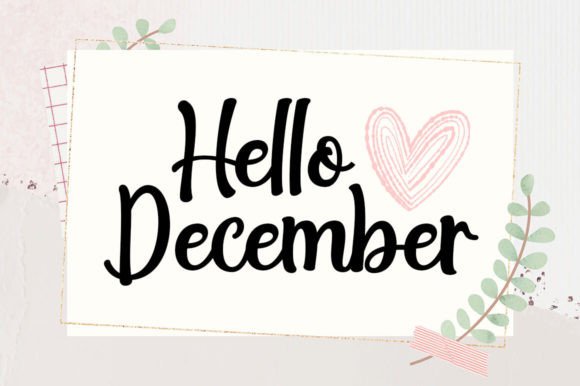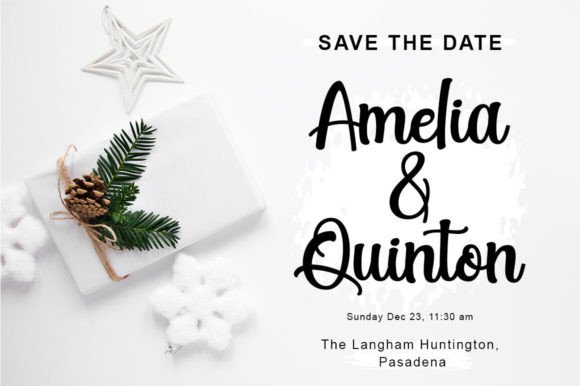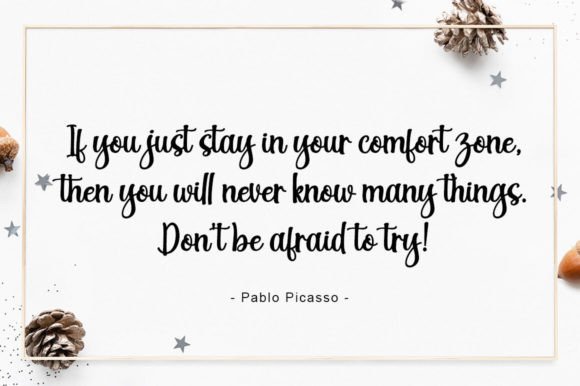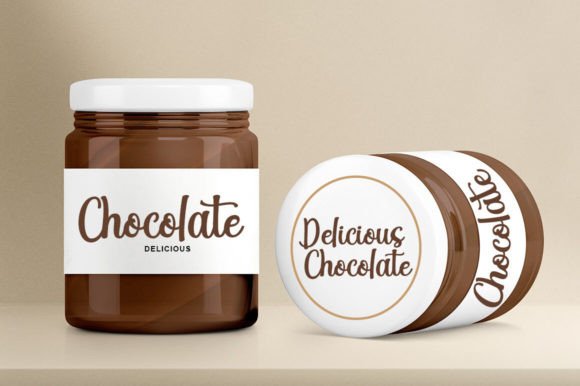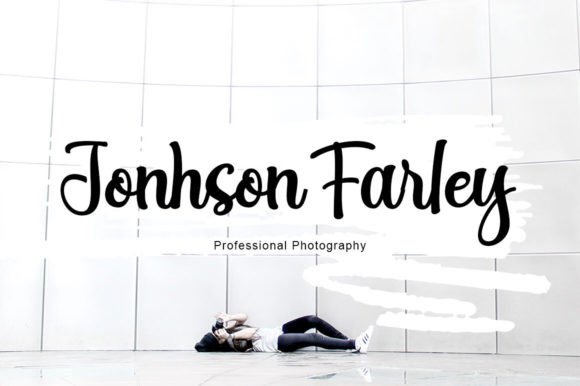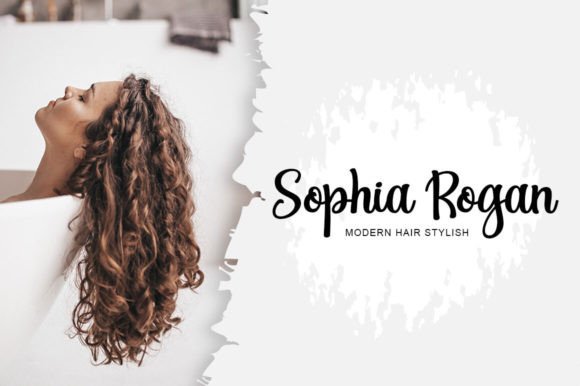
Unleash Your Creativity with the Perfect Handwritten Touch
Who hasn’t felt that rush of excitement when brainstorming a new project, the ideas flowing freely and the possibilities endless? It’s a feeling that never gets old, and it’s exactly what we experience when working with the right tools – like the Handwritten Font. This bouncy and cute handwritten script font is more than just a design element; it’s a way to add a playful and quirky touch to your creations.
Whether you’re designing wedding invitations, birthday cards, or t-shirt designs, the Handwritten Font is the perfect companion to help you bring your ideas to life. Its fun and carefree nature makes it an ideal choice for designers looking to add a handwritten touch to their work. With its versatility and charm, the Handwritten Font is a valuable asset in any designer’s toolkit.
Key Features of Handwritten Font
- Unique Characteristics: The Handwritten Font family features authentic, hand-drawn designs with subtle imperfections, giving your text a personal and artistic touch.
- Font Styles: The font family includes a range of styles, from casual and cursive to bold and script, allowing you to choose the perfect look for your project.
Designer Review: Handwritten Font
At first glance, the Handwritten Font is quite charming, with its elegant and playful feel. ✨ The font is perfect for creating a personal and friendly atmosphere in various designs, from wedding invitations to social media graphics.
Here are some key strengths of the Handwritten Font:
- Expressive and whimsical feel, making it suitable for creative and artistic projects
- Wide range of styles and variations, allowing for endless customization options
- Works well for headings and titles, adding a touch of sophistication to any design
- ⚠️ Limited legibility in small font sizes, which can make it difficult to read in certain contexts
- ⚠️ May not be suitable for formal or professional projects, as it can come across as too casual
- ⚠️ Some characters and symbols may not be available or may be difficult to find
Overall, the Handwritten Font is a lovely addition to any designer’s toolkit. While it may have some limitations, its unique charm and versatility make it a great choice for creative projects.
Practical Application Guide: Handwritten Font
In Adobe Photoshop, use the ‘Type Tool’ to create a text layer. Choose a handwritten font from the ‘Fonts’ panel and adjust the font size, color, and style as needed. To add a handwritten effect, use the ‘Brush Tool’ to create a custom brush with a handwritten texture. In Adobe Illustrator, use the ‘Type Tool’ to create a text layer and select a handwritten font from the ‘Fonts’ panel. Use the ‘Effect’ menu to add a handwritten effect, such as a brush stroke or texture.
In PowerPoint, select the ‘Text Box’ element and choose a handwritten font from the ‘Home’ tab. Adjust the font size, color, and style to enhance the handwritten effect. Use the ‘Effects’ tab to add texture, shadows, or other effects to give your text a more authentic handwritten look. In Word, select the ‘Home’ tab and choose a handwritten font from the font library. Adjust the font size, color, and style as needed to achieve the desired handwritten effect.
Tips for Getting the Most Out of Handwritten Font
Use a combination of font sizes, colors, and styles to create a visually appealing handwritten effect. Experiment with different font combinations to achieve a unique and authentic look. Use the ‘Effects’ tab to add texture, shadows, or other effects to give your text a more authentic handwritten look. Consider using a handwritten font as a heading or title to draw attention to important information.
Handwritten font is commonly used in creative projects, such as invitations, greeting cards, and social media graphics. It’s also used in educational materials, such as lesson plans and worksheets, to add a personal touch. Handwritten font